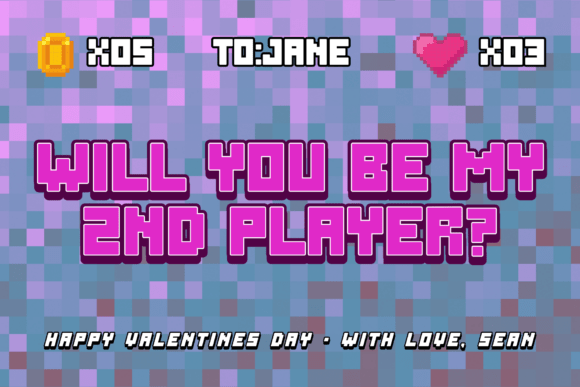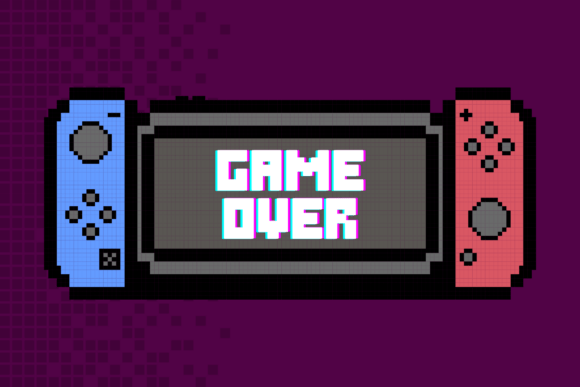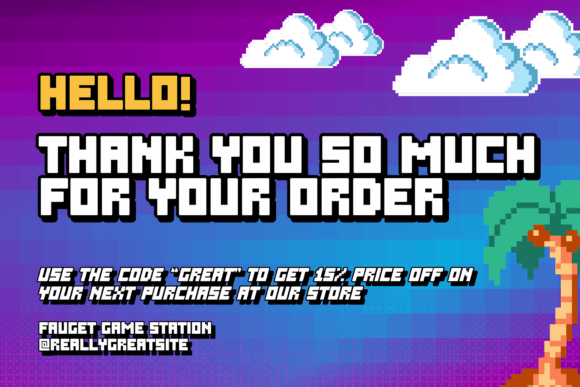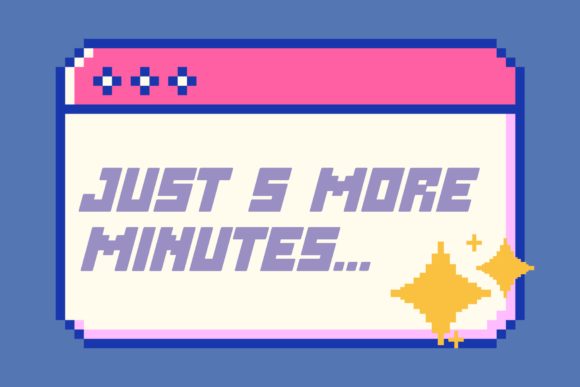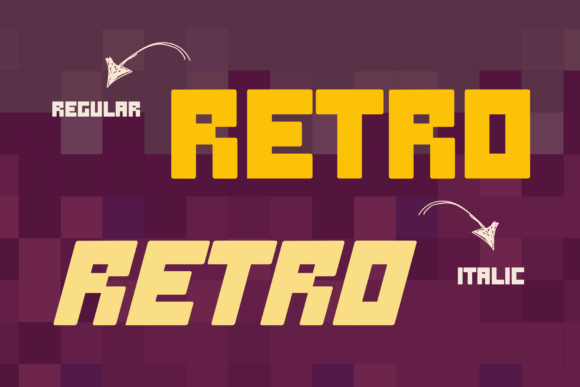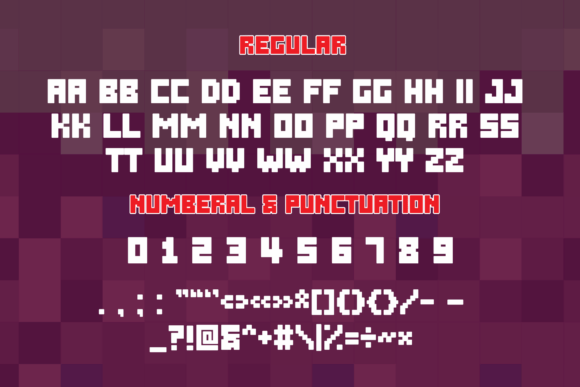
Introduction to Over Pixel Font
Over Pixel is a heavy, square-cut display font inspired by the aesthetics of voxel art and sandbox games.
With chunky, brick-like characters and a pixel-perfect edge, this typeface brings a sense of structure, fun, and retro flair to any digital project Whether youโre crafting a game UI, designing titles for an 8-bit adventure, or building bold brand visuals.